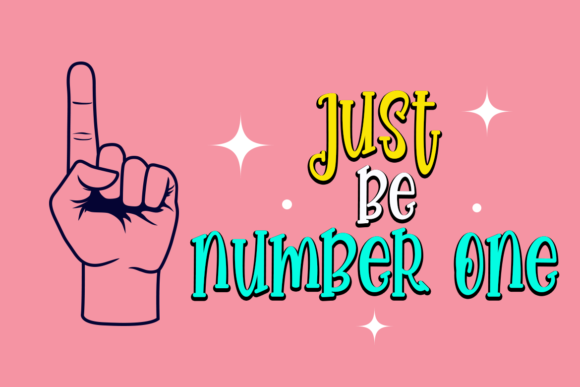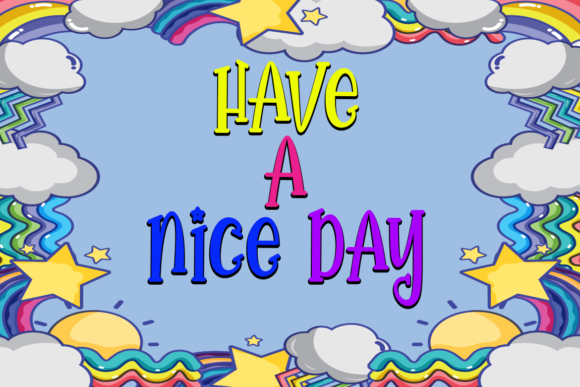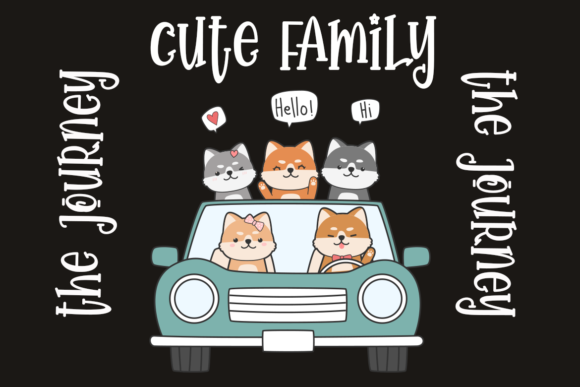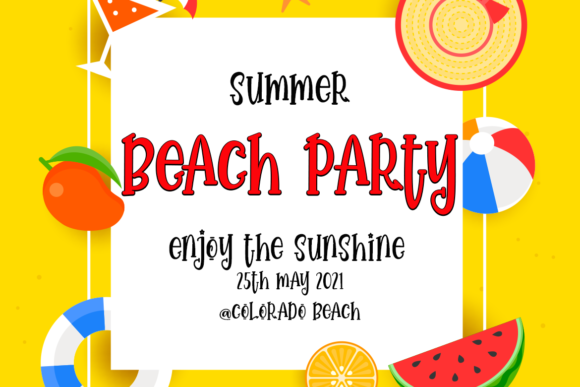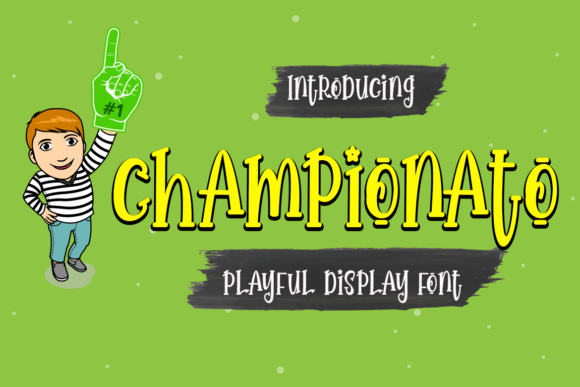
Championato Font: The Perfect Addition to Your Design Arsenal
Are you tired of using the same old fonts in your designs? Look no further than Championato Font, an incredibly cute and playful display font that’s sure to ignite your creativity. With its authentic and jolly feel, Championato is the perfect addition to your design arsenal, whether you’re a seasoned designer or a crafty DIY enthusiast.
What is Championato Font?
Championato Font is a unique and eye-catching display font that’s designed to make your designs stand out. Its playful and whimsical feel makes it perfect for use in a variety of design projects, from posters and flyers to social media graphics and website headers. Whether you’re looking to add a touch of personality to your designs or create a bold and eye-catching statement, Championato Font is the perfect choice.
Key Features of Championato Font
So, what makes Championato Font so special? Here are just a few of its key features:
- Playful and whimsical feel: Championato Font has a fun and carefree vibe that’s perfect for designs that need a bit of personality.
- Authentic and jolly: This font feels genuine and joyful, making it perfect for designs that need to evoke a sense of happiness and excitement.
- Display font: Championato Font is designed specifically for use as a display font, making it perfect for headlines, titles, and other prominent text elements.
- Easy to read: Despite its playful feel, Championato Font is still easy to read, even at smaller sizes.
How to Use Championato Font
Championato Font is incredibly versatile, and can be used in a wide range of design projects. Here are a few ideas to get you started:
- Posters and flyers: Use Championato Font to create eye-catching headlines and titles for your posters and flyers.
- Social media graphics: Add a touch of personality to your social media graphics with Championato Font.
- Website headers: Use Championato Font to create bold and eye-catching website headers that really make your site stand out.
- Crafting projects: Championato Font is also perfect for use in crafting projects, such as scrapbooking, card making, and other paper crafts.
Why Choose Championato Font?
So, why should you choose Championato Font for your design projects? Here are just a few reasons:
- Unique and eye-catching: Championato Font is a one-of-a-kind font that’s sure to make your designs stand out.
- Easy to use: This font is incredibly easy to use, even for designers who are new to working with fonts.
- Versatile: Championato Font can be used in a wide range of design projects, from posters and flyers to social media graphics and website headers.
- High-quality: This font is designed to high-quality standards, ensuring that it looks great in any design.
In conclusion, Championato Font is an incredibly cute and playful display font that’s sure to ignite your creativity. With its authentic and jolly feel, this font is perfect for designers and crafters who want to add a touch of personality to their designs. Whether you’re working on a poster, social media graphic, or crafting project, Championato Font is the perfect choice. So why wait? Download Championato Font today and start creating amazing designs!